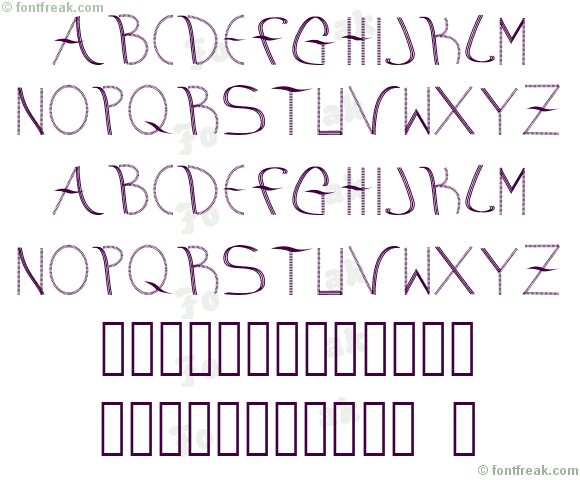
aura
About aura
The Aura font, created by Manuel Ramos in 2012, is a stunning display typeface that captures attention with its unique flair. This font falls into the decorative category, making it an ideal choice for projects that require a touch of creativity and elegance. The visual characteristics of the Aura font are marked by its thin to medium stroke weight, offering a delicate yet impactful presence. The contrast between the strokes creates a sense of depth, while the ample spacing between letters ensures legibility, making it perfect for both headlines and body text. The decorative elements of the font, such as the elegant curves and stylish accents, contribute to its overall charm.
Best suited for a variety of applications, the Aura font is particularly effective for wedding invitations, where its graceful aesthetic can convey romance and sophistication. It also shines in movie posters, adding an artistic flair that captures the viewer's attention. Restaurant menus can benefit from its distinctive style, helping to create an inviting atmosphere that reflects the establishment's unique character. Additionally, graphic designers will find it useful for branding projects, as it lends an air of creativity and individuality to logos and promotional materials.
What sets the Aura font apart is its ability to blend elegance with creativity, making it a standout choice for anyone looking to make a memorable impression in their designs. Its unique characteristics and artistic flair ensure that it will capture attention and leave a lasting impact.